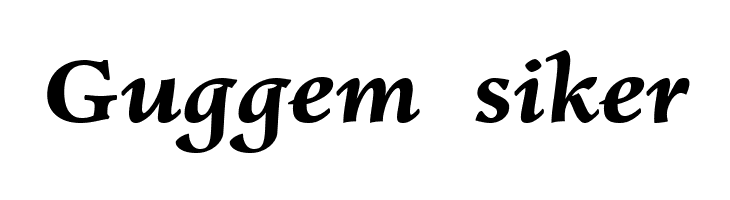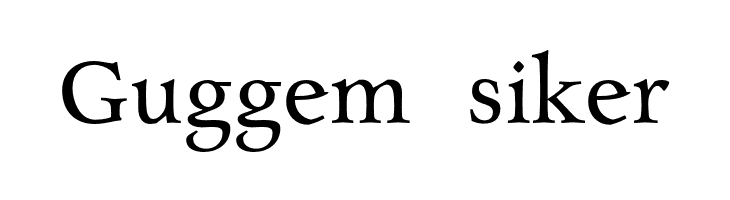
A classic serif font with elegant, balanced letterforms and a Renaissance-inspired style.
An elegant, italic serif font with a Renaissance-inspired style.
A classic serif font with bold, elegant strokes and a Renaissance-inspired design.
A classic, elegant font with Renaissance calligraphy influences and medium contrast.
A classic serif font with elegant strokes and a Renaissance-inspired design.
A classic serif font with medium contrast and elegant style.
A classic, elegant serif font with Renaissance-inspired calligraphic elements.
A classic, oblique serif font with a Renaissance-inspired elegance.
A classic serif font with elegant, Renaissance-inspired details.
A classic, elegant serif font with oblique characters and Renaissance charm.
A classic serif font with medium contrast and elegant, traditional features.
A classic, oblique serif font with Renaissance elegance and moderate contrast.
A classic serif font with elegant, calligraphic influences and moderate stroke contrast.
A classic serif font with elegant, Renaissance-inspired design and moderate contrast.
A classic serif font with elegant curves and moderate contrast.
A classic, elegant serif font with a slight oblique slant and moderate stroke contrast.
A classic, calligraphic serif font with elegant curves and sharp serifs.
A classic serif font with high contrast and elegant serifs.
An elegant serif font with high contrast and a slight italic slant, perfect for classic and modern designs.
An elegant italic font with classic calligraphic influences.